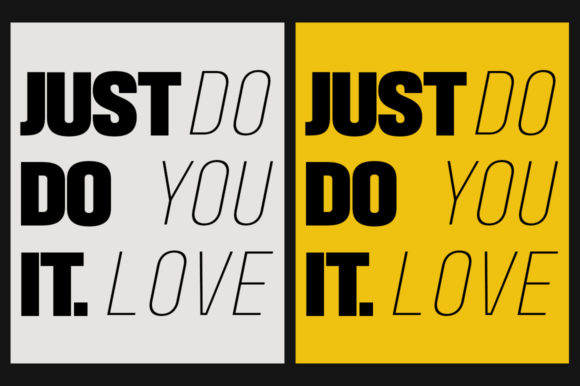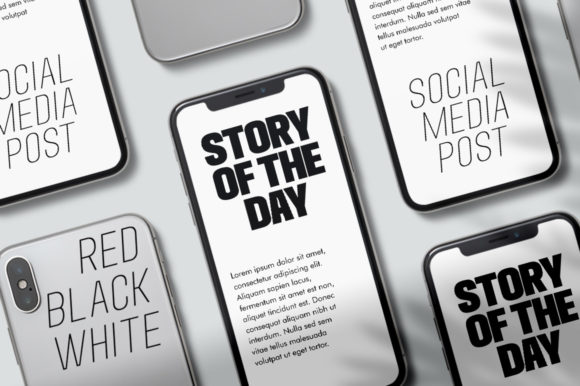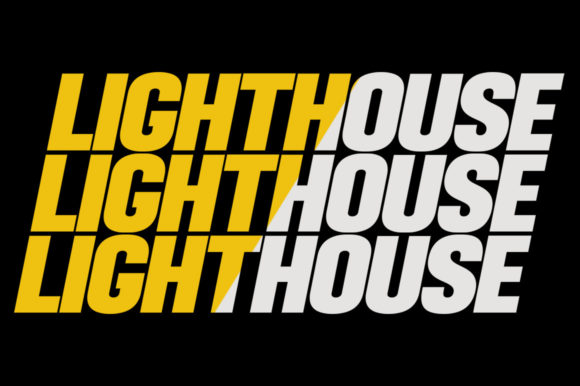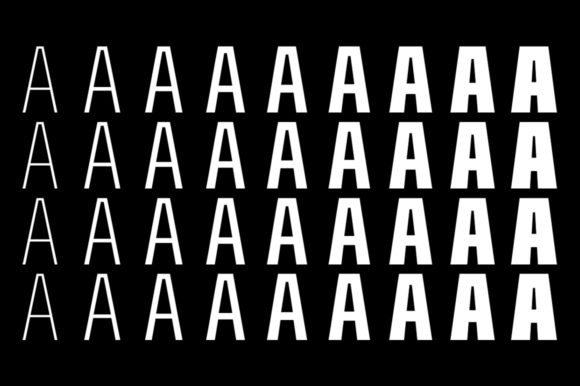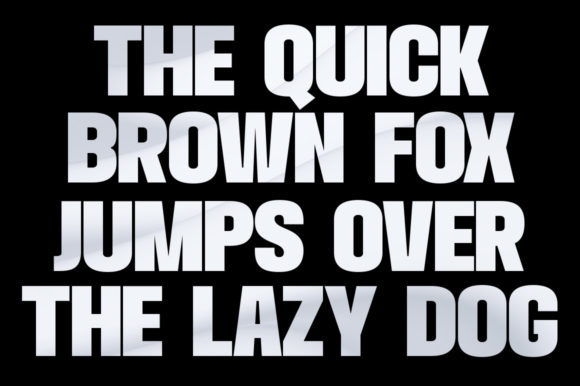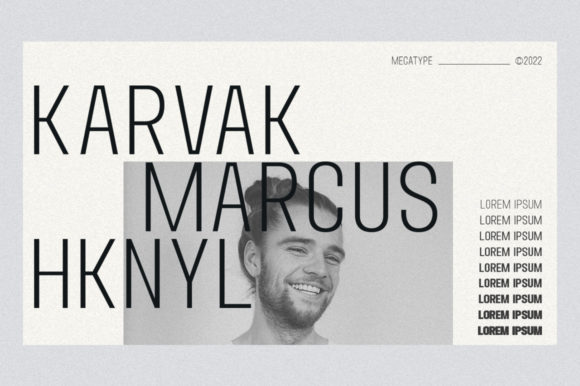
Introducing Chandler Mountain Font: Elevate Your Creativity with this Stunning Display Font
Are you a designer, crafter, or DIY enthusiast looking for a font that can take your creative projects to the next level? Look no further than Chandler Mountain Font! This cool display font family is perfect for anyone who wants to add a touch of elegance and sophistication to their work. Whether you’re creating visual content for Instagram, crafting calligraphy scripts for DIY projects, or designing graphics for personal or commercial use, Chandler Mountain Font is the perfect choice.
What Makes Chandler Mountain Font So Special?
Chandler Mountain Font is a versatile and stylish font family that can be used for a wide range of creative projects. Its unique and elegant design makes it perfect for:
- Instagram graphics and social media posts
- Calligraphy scripts and hand-lettering projects
- DIY crafts and paper crafting
- Graphic design and branding projects
- Wedding and event planning materials
With Chandler Mountain Font, you can turn any creative idea into a true piece of art. Its clean lines, beautiful curves, and stylish aesthetic make it perfect for creating visually stunning graphics and designs that will leave a lasting impression.
Key Features of Chandler Mountain Font
So, what sets Chandler Mountain Font apart from other font families? Here are some of its key features:
- Unique and elegant design: Chandler Mountain Font has a distinctive and stylish aesthetic that will add a touch of sophistication to any design.
- Versatile and flexible: This font family can be used for a wide range of creative projects, from social media graphics to DIY crafts.
- Easy to read and use: Chandler Mountain Font is clear, legible, and easy to use, making it perfect for designers and crafters of all skill levels.
- High-quality and professional: This font family is designed to meet the highest standards of quality and professionalism, ensuring that your designs look polished and refined.
How to Use Chandler Mountain Font in Your Creative Projects
Using Chandler Mountain Font in your creative projects is easy! Here are some tips and ideas to get you started:
- Pair it with other fonts: Combine Chandler Mountain Font with other fonts to create visually interesting and dynamic designs.
- Experiment with colors and textures: Add depth and interest to your designs by experimenting with different colors and textures.
- Use it for headings and titles: Chandler Mountain Font is perfect for headings and titles, adding a touch of elegance and sophistication to any design.
- Get creative with DIY projects: Use Chandler Mountain Font to create beautiful calligraphy scripts and hand-lettering projects for DIY crafts and paper crafting.
Chandler Mountain Font is a stunning display font family that can elevate any creative project to new heights. With its unique and elegant design, versatile and flexible features, and high-quality and professional aesthetic, this font is perfect for designers, crafters, and DIY enthusiasts of all skill levels. So why wait? Download Chandler Mountain Font today and start turning your creative ideas into true pieces of art!